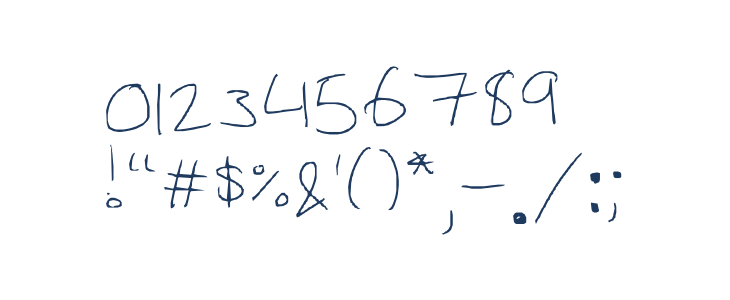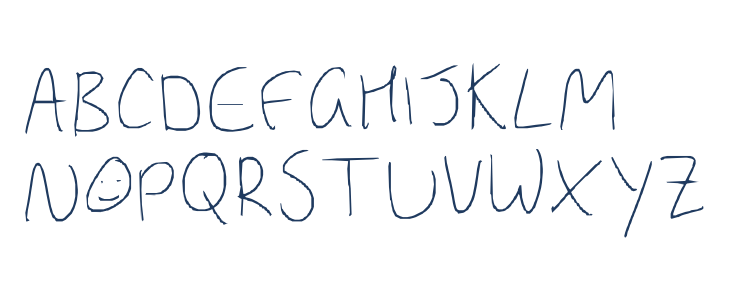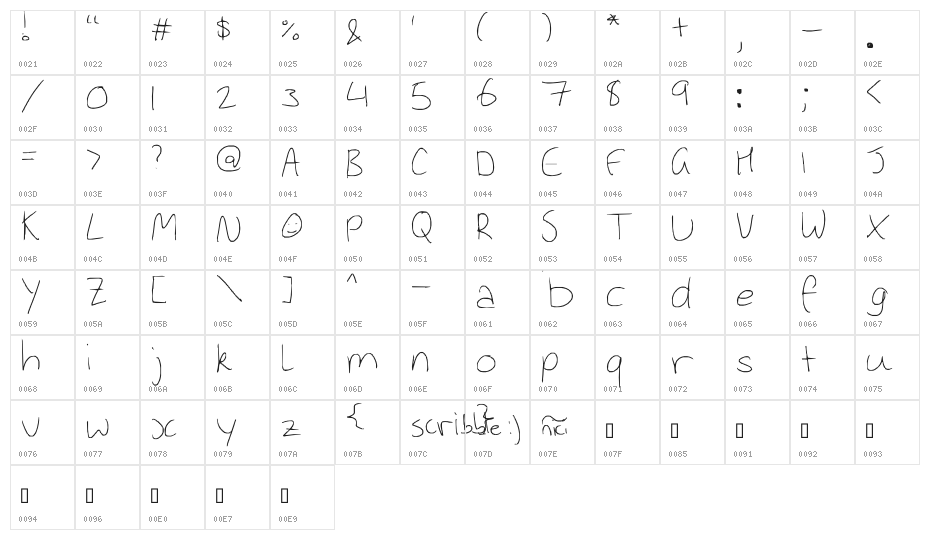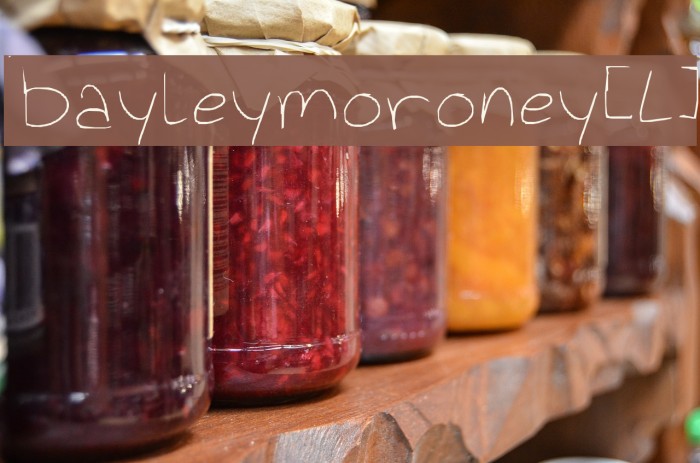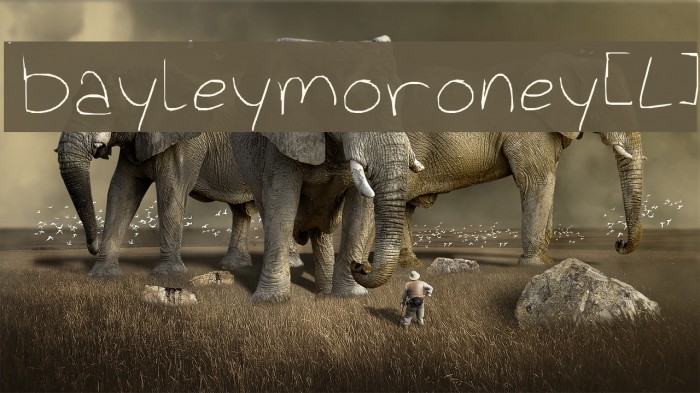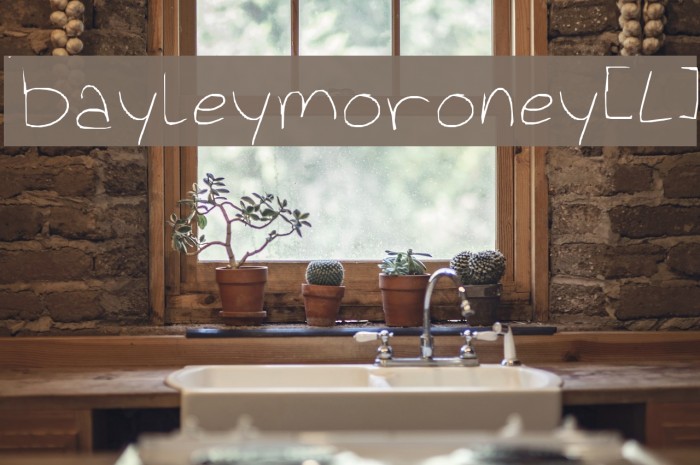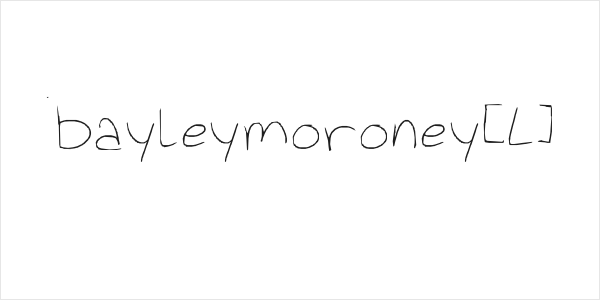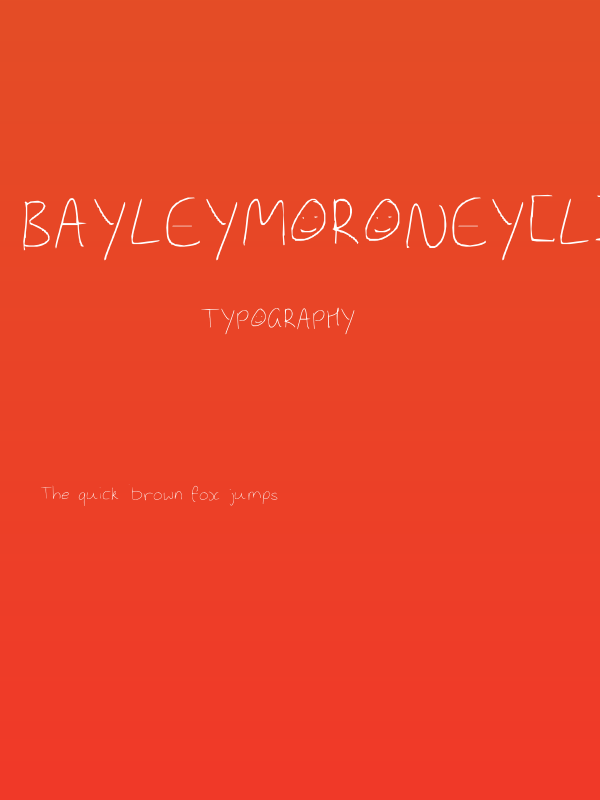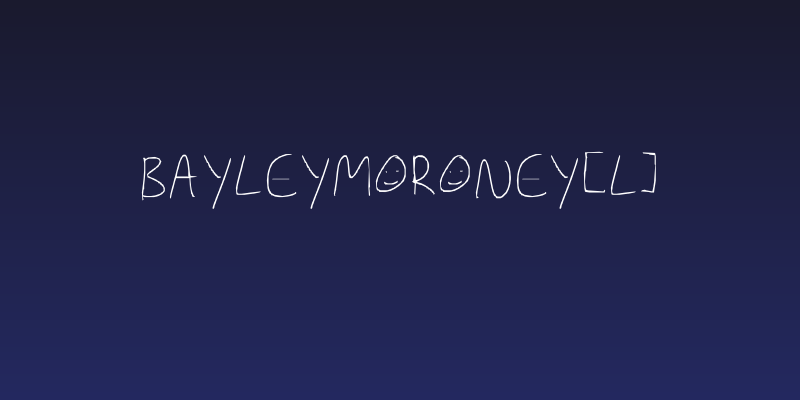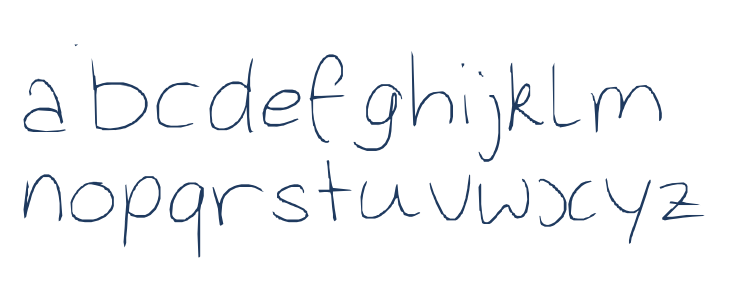
bayleymoroney[L] Font
bayleymoroney[L] Description
This font exhibits a casual, handwritten style with a playful and informal appearance. The characters are unevenly spaced and vary slightly in size, giving it a natural, organic feel. The strokes are thin and consistent, with a slight wobble that adds to the handwritten charm. The uppercase letters are tall and narrow, while the lowercase letters are more rounded and open. Numbers and special characters maintain the same playful style, making this font suitable for creative and informal projects. The overall look is approachable and friendly, ideal for conveying a personal touch.